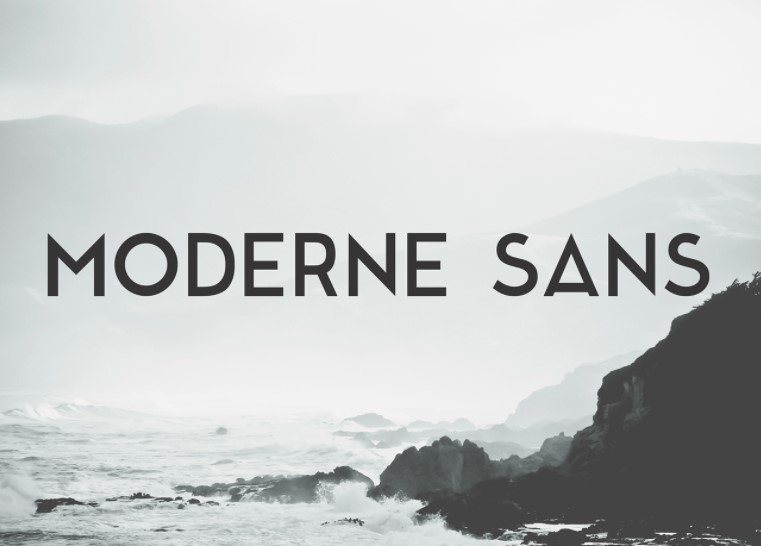
It contains current, stylish, and innovative designs which look beautiful in all works. It contains the best sets of characters, ligatures, and widths.
We present to you the exquisite Moderne Sans Font, a remarkable typeface that boasts high-quality designs and textures. It is available for free download and use.
It contains current, stylish, and innovative designs which look beautiful in all works. It contains the best sets of characters, ligatures, and widths.
You can check out the below picture to take an idea of the legibility, visibility of this modern typeface. It is great to use with the combination of hobo std font.